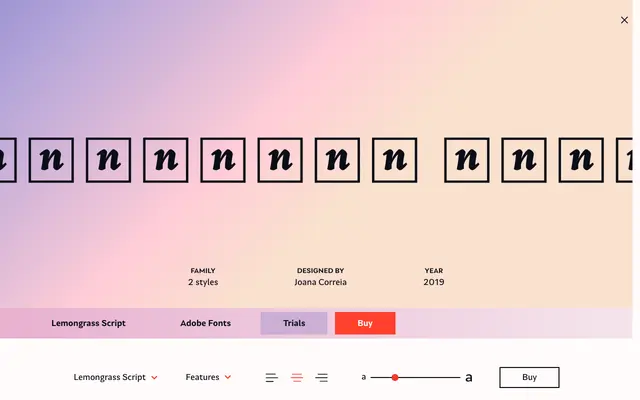
Lemongrass Script
A connected brush script by Joana Correia, drawn from the wind-swept energy of Porto and designed for branding and packaging.
Inspired by brush lettering and the coastal winds of Porto known as 'nortada', it keeps contrast low and connections smooth to maintain even rhythm across a word. The family includes a complementary Caps style designed to read more clearly in all-caps settings, extending the typeface's flexibility. OpenType features cover contextual alternates, stylistic alternates, swashes and ligatures, giving designers room to distinguish a brand's voice.
A connected brush script with low contrast and smooth joins, designed explicitly for display use and inspired by brush lettering traditions.